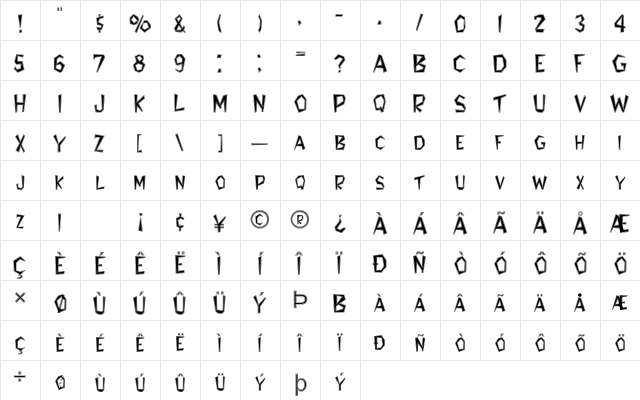
FZ JAZZY 8 CONTOUR Normal
Design Context for FZ JAZZY 8 CONTOUR
FZ JAZZY 8 CONTOUR is a composed and adaptable typeface that performs quietly and consistently across a wide range of design contexts.